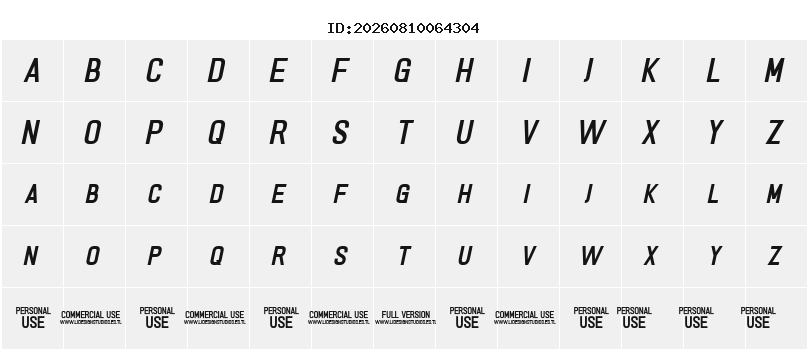
PRIMERA Preview
• Font Name: PRIMERA
• Font Style: Semi-bold-italic
• Font ID: PRIMERA Semi-bold-italic:Version 1.00
• Full Font Name: PRIMERA Semi-bold-italic
• Version: Version 1.00 March 1, 2016, initial release
• PostScript Name: PRIMERA-Semi-bold-italic
• Designer: Luis Jaramillo
• Manufacturer: LJ-Design Studios
About PRIMERA.ttf
PRIMERA.ttf is a modern, elegant sans-serif font designed for ultimate readability and visual harmony. Perfect for branding, headlines, web design, and print materials.